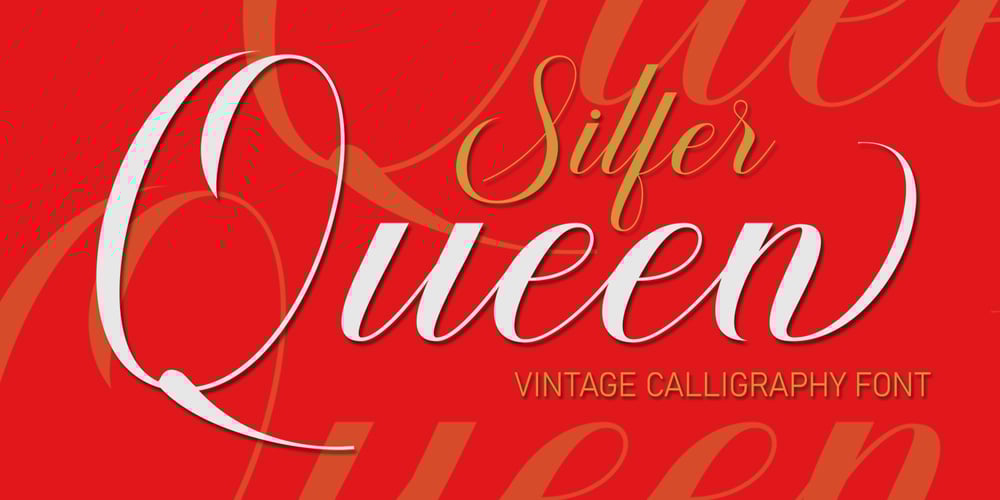
Silfer Queen Script Font Family was designed by Muhajir Akarim and published by Soft Creative. Silfer Queen Script contains 1 styles and family package options. Introducing Silfer Queen Script vintage calligraphy font.Silfer Queen Script is a classic calligraphy font. This is a classic thin font with an italic style. Here you will get a beautiful classic font. This font is available in several modern swirls that can make your work look elegant, sweet and perfect.